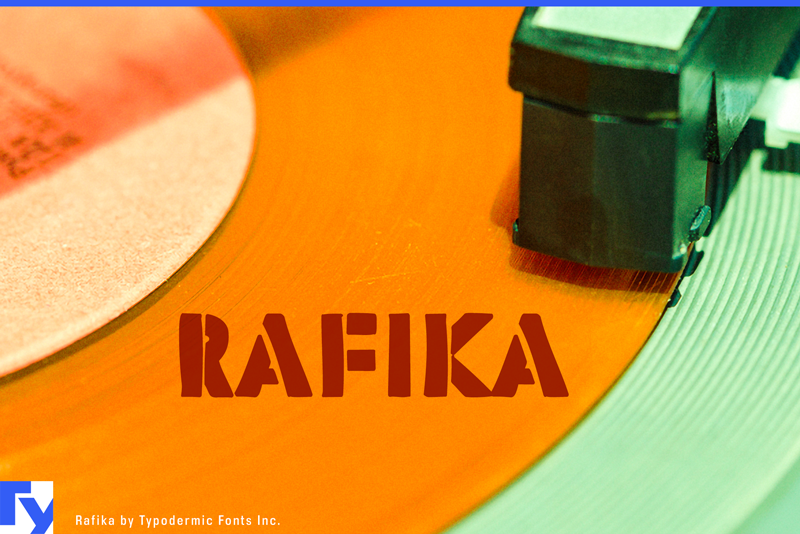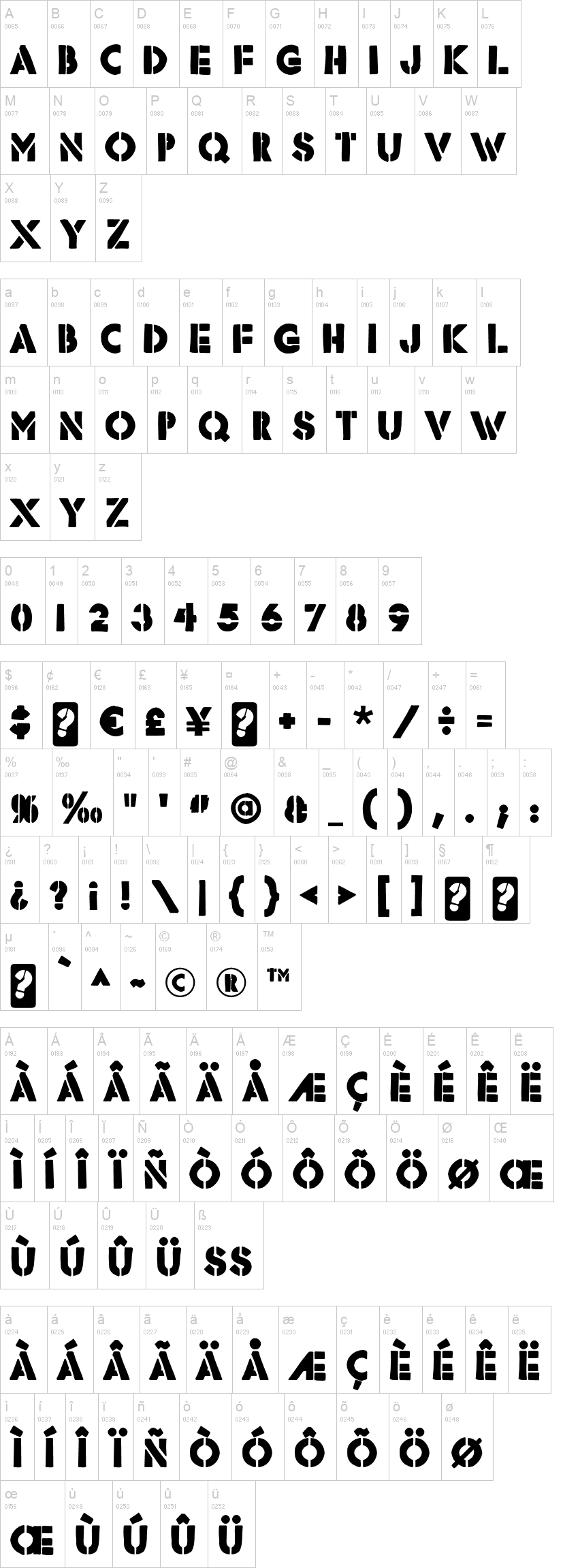
Note of the authorRafika is a rustic, hand-painted stencil font. Its gritty, rough appearance will lend a strong style and sense of confidence to your message. Most Latin-based European writing systems are supported, including the following languages. Afaan Oromo, Afar, Afrikaans, Albanian, Alsatian, Aromanian, Aymara, Bashkir (Latin), Basque, Belarusian (Latin), Bemba, Bikol, Bosnian, Breton, Cape Verdean, Creole, Catalan, Cebuano, Chamorro, Chavacano, Chichewa, Crimean Tatar (Latin), Croatian, Czech, Danish, Dawan, Dholuo, Dutch, English, Estonian, Faroese, Fijian, Filipino, Finnish, French, Frisian, Friulian, Gagauz (Latin), Galician, Ganda, Genoese, German, Greenlandic, Guadeloupean Creole, Haitian Creole, Hawaiian, Hiligaynon, Hungarian, Icelandic, Ilocano, Indonesian, Irish, Italian, Jamaican, Kaqchikel, Karakalpak (Latin), Kashubian, Kikongo, Kinyarwanda, Kirundi, Kurdish (Latin), Latvian, Lithuanian, Lombard, Low Saxon, Luxembourgish, Maasai, Makhuwa, Malay, Maltese, Māori, Moldovan, Montenegrin, Ndebele, Neapolitan, Norwegian, Novial, Occitan, Ossetian (Latin), Papiamento, Piedmontese, Polish, Portuguese, Quechua, Rarotongan, Romanian, Romansh, Sami, Sango, Saramaccan, Sardinian, Scottish Gaelic, Serbian (Latin), Shona, Sicilian, Silesian, Slovak, Slovenian, Somali, Sorbian, Sotho, Spanish, Swahili, Swazi, Swedish, Tagalog, Tahitian, Tetum, Tongan, Tshiluba, Tsonga, Tswana, Tumbuka, Turkish, Turkmen (Latin), Tuvaluan, Uzbek (Latin), Venetian, Vepsian, Võro, Walloon, Waray-Waray, Wayuu, Welsh, Wolof, Xhosa, Yapese, Zapotec Zulu and Zuni.